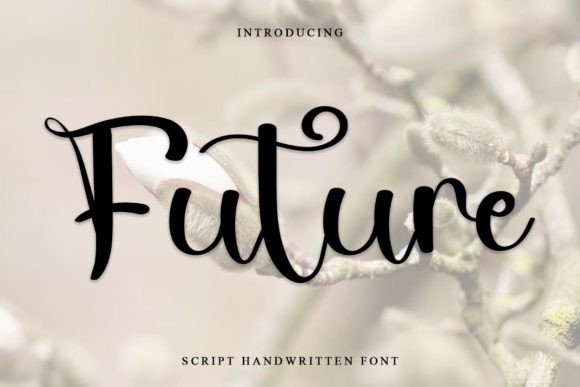
Introducing Future Font - Enchant Your Designs with Exquisite Charm
In the realm of design, fonts hold the power to transform imagination into visual masterpieces. Among the dazzling array of options, Future Font emerges as a radiant gem, beckoning you with its elegance and finesse. This enchanting script font, brought to life by the visionary PiPi Creative, is the perfect companion for your most cherished projects, ready to weave a tapestry of beauty and intrigue.
Indulge in the allure of Future Font's meticulously crafted curves, each stroke a testament to the artist's passion. Its delicate flourishes dance across the page, evoking a sense of timeless grace. From logos that exude sophistication to branding that captivates the heart, Future Font elevates your designs to new heights of visual splendor.
Say goodbye to the mundane and embrace the extraordinary with Future Font. Its inherent versatility empowers you to breathe life into a myriad of creative endeavors. Let your imagination soar as you craft mesmerizing invitations that hint at a special occasion, or create eye-catching posters that command attention with their elegance. Unleash your inner artist and transform ordinary social media posts into captivating works of art, guaranteed to leave an unforgettable impression.
With Future Font, you hold the key to unlocking a world of possibilities. Whether you're a seasoned designer seeking to add a touch of sophistication to your portfolio or a budding entrepreneur yearning for a distinctive identity, this font is your muse. Its versatility knows no bounds, adapting seamlessly to a symphony of design projects, each infused with its own unique charm.
Embrace the magic of Future Font and let your creativity flourish. Its timeless aesthetic transcends fleeting trends, ensuring that your designs maintain their captivating allure for years to come. With every stroke of this exquisite font, you'll leave an indelible mark, enchanting your audience with the sheer beauty of your creations.